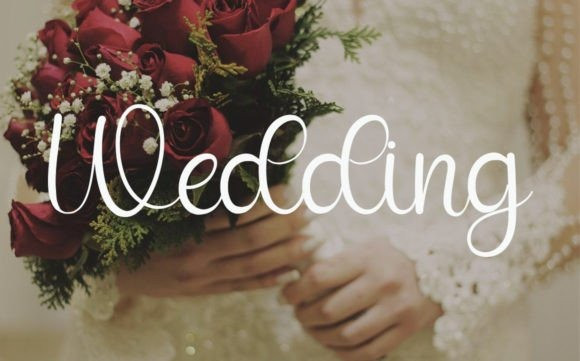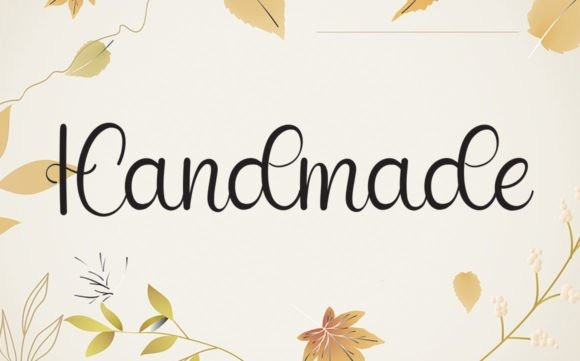
Twinkle Script Font
Twinkle Script Font is an enchanting handwritten font. This versatile font has a wide spectrum of applications ranging from greeting cards to headlines and is guaranteed to add a romantic feel to your next project!